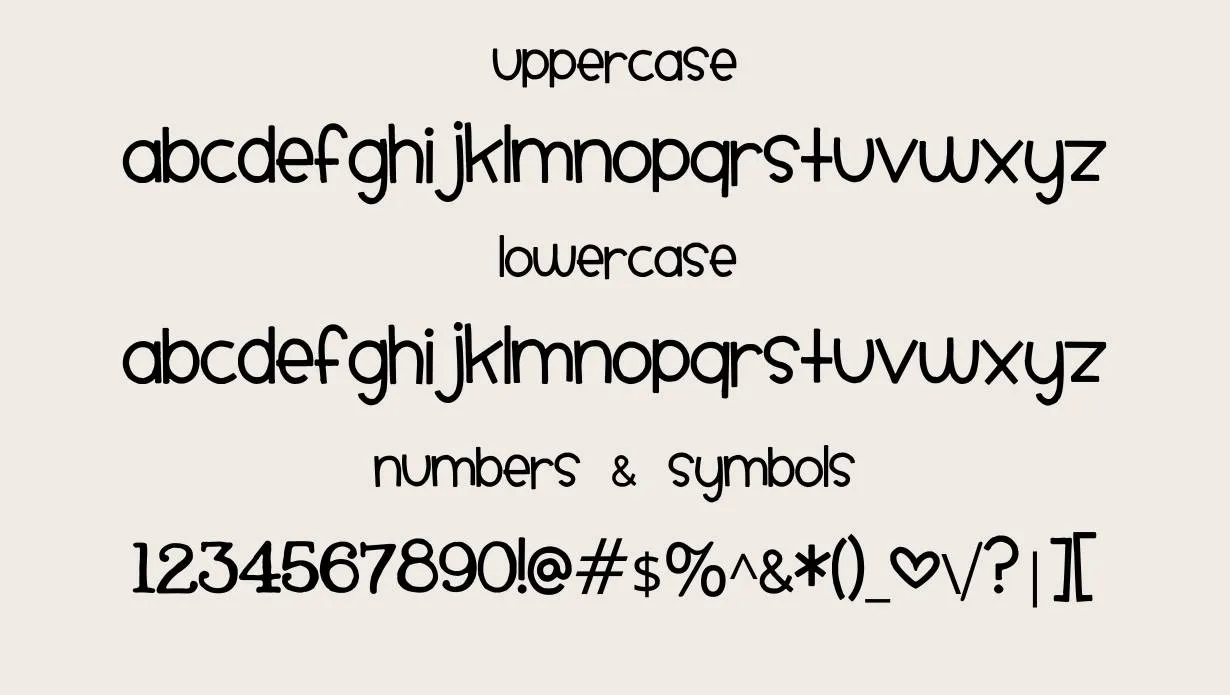
Smiley Monster Font is a playful and decorative typeface that adds a touch of fun and creativity to design projects. It’s often used in children’s books, party invitations, and imaginative branding.
| Name | Smiley Monster Font |
| Designer | Ryan Neaveill |
The font’s whimsical and cheerful letterforms create a sense of joy and wonder, making it perfect for projects aimed at younger audiences or those seeking a lighthearted touch in their designs.